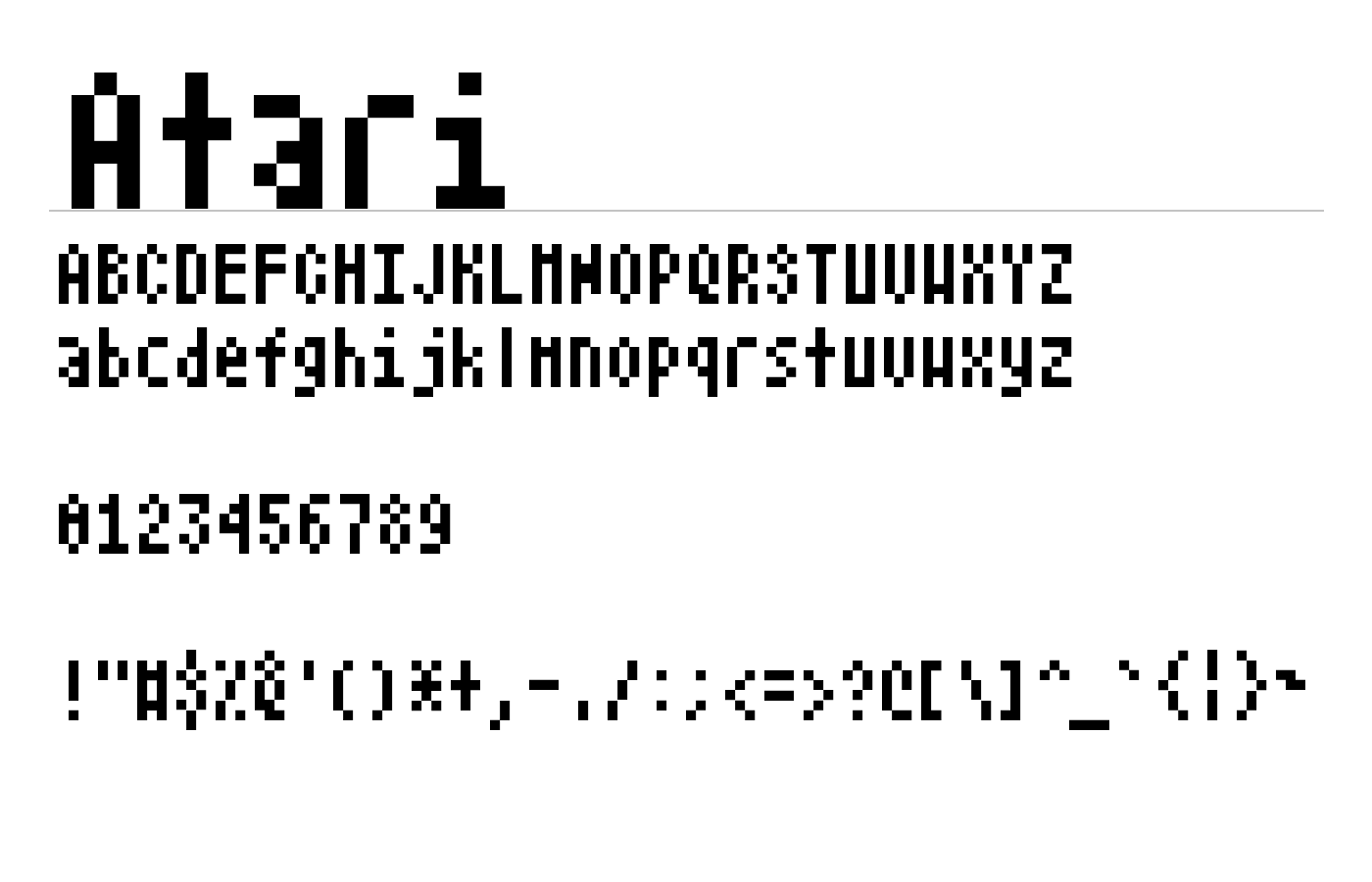
Atari Font is a pixelated, monospaced sans serif typeface characterized by its blocky, retro digital look reminiscent of early video game graphics. Its rigid, geometric letterforms and consistent stroke weight evoke a nostalgic, arcade-era feel, making it perfect for designs that aim to capture vintage technology or gaming culture. This font works best in logos, posters, and web designs where a bold, playful, and distinctly computer-inspired aesthetic is desired.
Atari Font